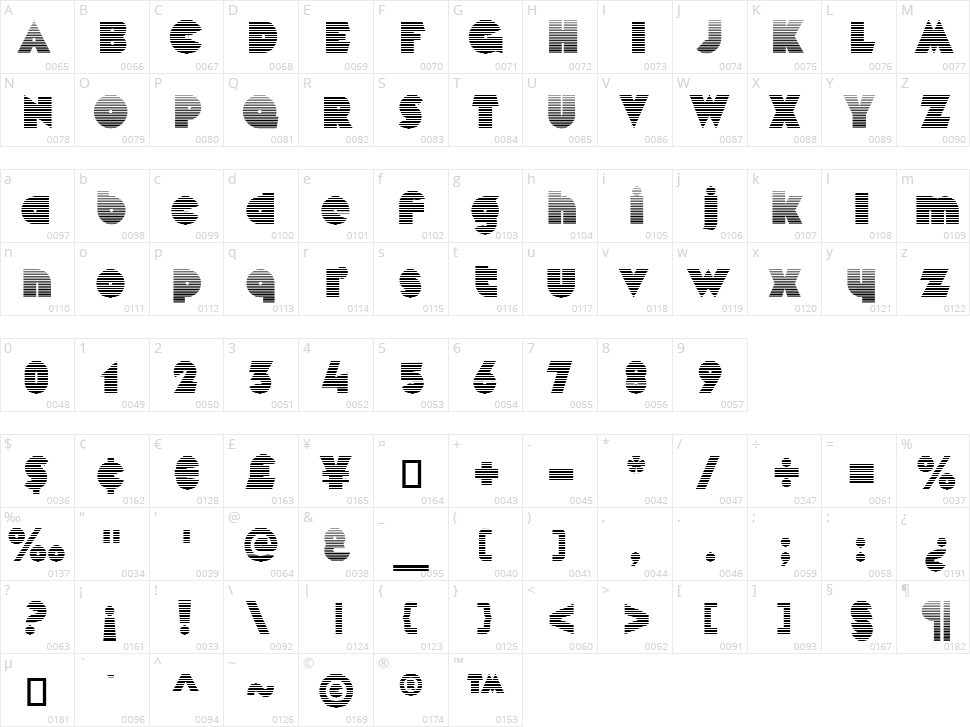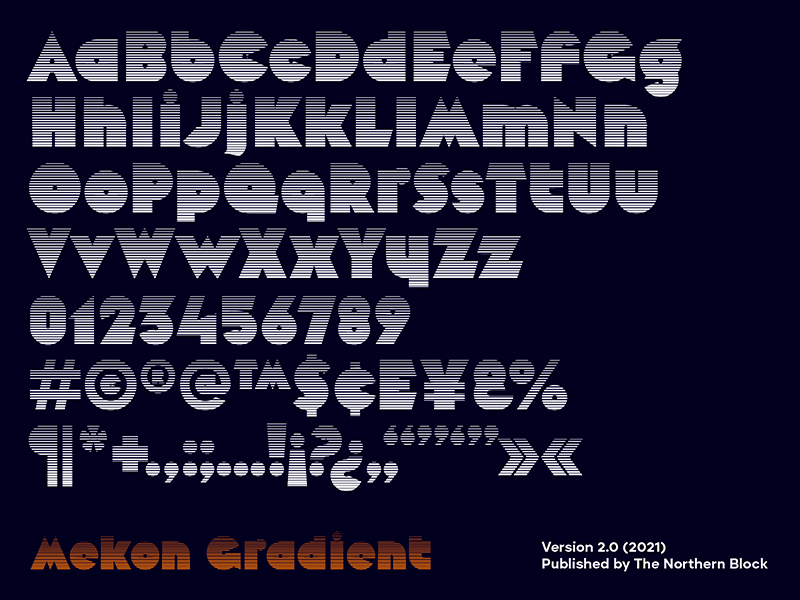
Mekon Gradient
Mekon is a modern heavyweight typeface digitised and expanded from Peter Steiners Black Body (1973). Retro-style Pacman shapes are combined with small keyhole counters to create a bold and witty font ideal for apparel, books, t-shirts and posters. Mekon is now available as version 2.0 (2021); the remastered version meets higher technical standards that modern-day users demand.